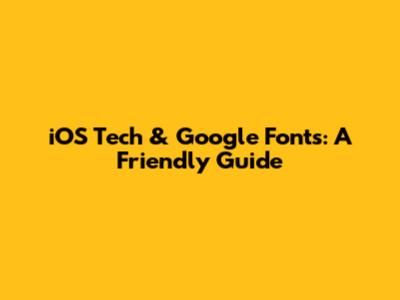
Hey guys! Ever wondered about the awesome fonts you see on your iPhone or iPad? Well, it's a bit of a tech party going on behind the scenes, and today, we're diving in! We're gonna explore the world of iOS technological fonts and how they mix it up with the super popular Google Fonts. Trust me, it's not as complex as it sounds, and by the end, you'll have a better understanding of how these fonts work their magic on your screens. So, buckle up, because we're about to embark on a font-tastic journey!
Understanding iOS Technological Fonts
Alright, so first things first, what exactly are iOS technological fonts? Think of them as the building blocks of text on your Apple devices. These are the fonts that are pre-installed and ready to go, right out of the box. Apple has carefully curated a selection of fonts that are optimized for readability and visual appeal on their devices. These fonts play a crucial role in the user experience, making sure everything from your text messages to your app interfaces looks clean, clear, and easy on the eyes. The fonts are designed to render beautifully on the high-resolution displays of iPhones and iPads, ensuring that text looks crisp and sharp, no matter the size. Apple has its own proprietary fonts, like San Francisco, which is the system font for iOS. It's designed to be highly legible at various sizes and is optimized for the Retina displays of Apple devices. The choice of fonts is not just about aesthetics; it's also about performance. iOS is designed to render these fonts efficiently, ensuring that text loads quickly and doesn't slow down the user interface. These fonts are specifically tailored to work seamlessly within the iOS ecosystem, making sure that there are no compatibility issues. Using pre-installed fonts can also reduce the overall file size of apps, as the font files don't need to be embedded, therefore, saving space on the device and improving loading times. These fonts are regularly updated by Apple to improve their performance and visual appearance, ensuring that they stay modern and optimized for the latest display technologies. Furthermore, system fonts like San Francisco have variations for different weights and styles, allowing developers to create a consistent and cohesive look across the entire interface. The use of system fonts contributes to a consistent user experience, so users know what to expect when they interact with apps and the operating system. Understanding these fonts is critical for anyone developing apps or designing content for iOS, because it helps you create a professional-looking product that looks great on all Apple devices.
The Role of System Fonts
System fonts are like the VIPs of the font world on iOS. They're the go-to fonts used throughout the operating system for things like menus, labels, and general text. The most well-known of these is San Francisco, which is designed to be super readable across different screen sizes and resolutions. These system fonts have been carefully selected and optimized by Apple to make sure that the user interface looks consistent and functions smoothly. They're designed to be legible at various sizes and weights, making them perfect for all sorts of applications. The reason system fonts are so important is because they establish the visual language of iOS. When you use system fonts, you're helping maintain a consistent user experience across the board. This familiarity makes it easier for users to navigate their devices and understand the information presented to them. System fonts ensure that text renders beautifully on the Retina displays of iPhones and iPads, meaning the text is crisp and sharp, and looks great. System fonts are generally available in multiple weights and styles (like bold, italic, and light), so developers have plenty of options to use to highlight important information. Using system fonts can also improve performance because they're already loaded on the device, reducing the need for additional downloads or processing. These fonts are regularly updated by Apple to improve their performance and visual appearance, ensuring that they're optimized for the latest display technologies. Choosing system fonts also helps to ensure that apps feel like they truly belong on iOS, as they will align with the overall look and feel of the device. This choice also contributes to the branding and identity of Apple's ecosystem, creating a cohesive visual experience for all users.
Custom Font Integration
Now, let's talk about adding your own flavor. While iOS provides great system fonts, sometimes you might want to use something a little different. That's where custom fonts come in! When developing apps or designing content for iOS, you might want to use specific fonts that match the branding or the style. Integrating these fonts requires a bit of extra work, but the results can be well worth it. You'll need to make sure the font files are properly added to your project and then use the appropriate code in your app to reference them. iOS supports various font formats, like TrueType (.ttf) and OpenType (.otf), giving you a bunch of flexibility when it comes to font selection. Before you start, it's essential to check the licensing of the font to make sure you're allowed to use it in your app. There are tons of resources available online, including tutorials and guides that will walk you through the process of adding custom fonts to your iOS projects. Remember that using too many different fonts can sometimes make an interface feel cluttered, so it's best to use them judiciously. Custom fonts can add a unique touch to your app, so it's a great way to make sure it stands out from the crowd. Using a unique font can enhance the user experience by adding personality and flair, making it more engaging for the user. When implementing custom fonts, it's important to test them on various devices to make sure they render correctly and look good. Overall, the ability to integrate custom fonts gives you a world of creative possibilities when designing for iOS, allowing you to create beautiful and engaging interfaces.
Google Fonts and iOS Compatibility
Alright, let's switch gears and talk about Google Fonts! Google Fonts is an awesome, free resource that offers a huge library of fonts you can use in your projects. They're web fonts, meaning they're designed to be used online, but can they play nicely with iOS? The answer is yes, with a little bit of adaptation. You can totally use Google Fonts in your iOS apps, but there are a few things to keep in mind. You'll need to download the font files from Google Fonts and then include them in your iOS project. Make sure you follow the licensing terms for each font, as they can vary. Some Google Fonts are specifically optimized for web use, so it's a good idea to test them on an iOS device to make sure they look great. To use Google Fonts in your iOS app, you must follow similar steps to using custom fonts. That means you must download the font files and then add them to your project. You can then use the font names in your code to apply them to your text elements. When choosing Google Fonts, consider their legibility on mobile screens, especially on smaller devices. While Google Fonts is free to use, it's essential to give credit to the font designers. Be sure to check the license details on each font to make sure it's suitable for your specific use case. It's often helpful to test different font sizes and weights to make sure the text is readable and visually appealing on the screen. Integrating Google Fonts into your iOS project gives you a ton of creative flexibility, allowing you to match the style of your app to your brand identity. Using Google Fonts can improve the overall look and feel of your app by adding a unique visual element that makes it stand out. By following these steps, you can harness the power of Google Fonts in your iOS apps, opening up a world of design possibilities.